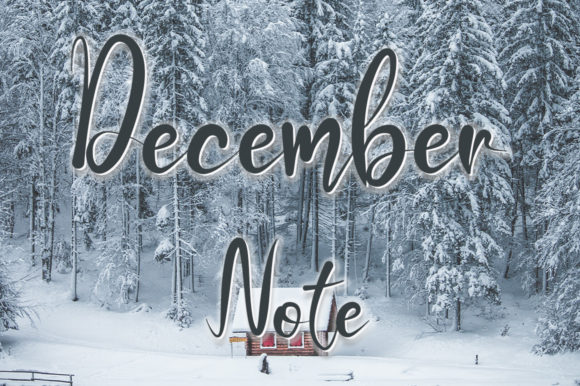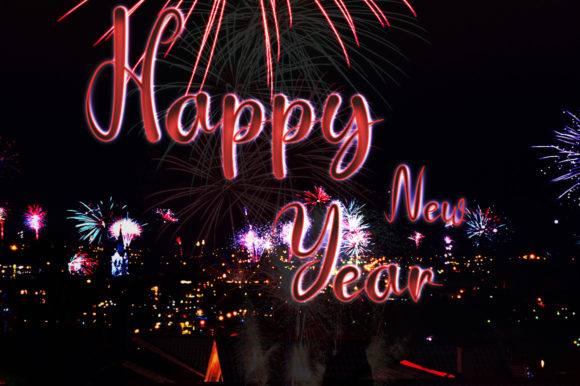
Introducing December Note Font: Elevate Your Designs with Elegance
Are you looking for a font that exudes elegance and sophistication for your designs? Look no further than the December Note Font, a beautiful script font perfect for all your design needs. Whether you’re creating invitation cards, greeting cards, or packaging products, this font is sure to make your designs stand out.
What is December Note Font?
December Note Font is a stunning script font that is specifically designed to provide a beautiful, natural, and refreshing look to your designs. This font is tailor-made for all December needs, making it perfect for holiday-themed designs, winter-inspired projects, and any design that requires a touch of elegance.
Key Features of December Note Font
- Beautiful Script Style: December Note Font features a beautiful script style that is perfect for creating elegant and sophisticated designs.
- Highly Versatile: This font is highly versatile and can be used for a wide range of design projects, including invitation cards, greeting cards, packaged products, and more.
- Elegant and Refined: December Note Font is designed to exude elegance and refinement, making it perfect for designers who want to create high-end designs.
- Easy to Read: Despite its elegant style, December Note Font is easy to read, making it perfect for designs that require a clear and concise message.
December Note Font is perfect for designers and crafters who want to add a touch of elegance and sophistication to their designs. Whether you’re creating digital designs or handmade crafts, this font is sure to elevate your projects and make them stand out.
Use Cases for December Note Font
- Invitation Cards: Use December Note Font to create beautiful and elegant invitation cards for weddings, parties, and other special events.
- Greeting Cards: Create stunning greeting cards for holidays, birthdays, and other special occasions using December Note Font.
- Packaged Products: Add a touch of elegance to your packaged products with December Note Font, perfect for luxury brands and high-end products.
- Digital Designs: Use December Note Font to create stunning digital designs, including social media graphics, blog posts, and website headers.
Why Choose December Note Font?
There are many reasons why you should choose December Note Font for your design projects. Here are just a few:
- Unique and Elegant Style: December Note Font features a unique and elegant style that is sure to make your designs stand out.
- Highly Versatile: This font is highly versatile and can be used for a wide range of design projects.
- Perfect for Seasonal Designs: December Note Font is perfect for seasonal designs, including holiday-themed designs and winter-inspired projects.
In conclusion, December Note Font is a beautiful script font that is perfect for all your design needs. With its elegant and refined style, this font is sure to elevate your designs and make them stand out. Whether you’re a designer or crafter, December Note Font is a must-have font that will help you create stunning designs that exude elegance and sophistication.